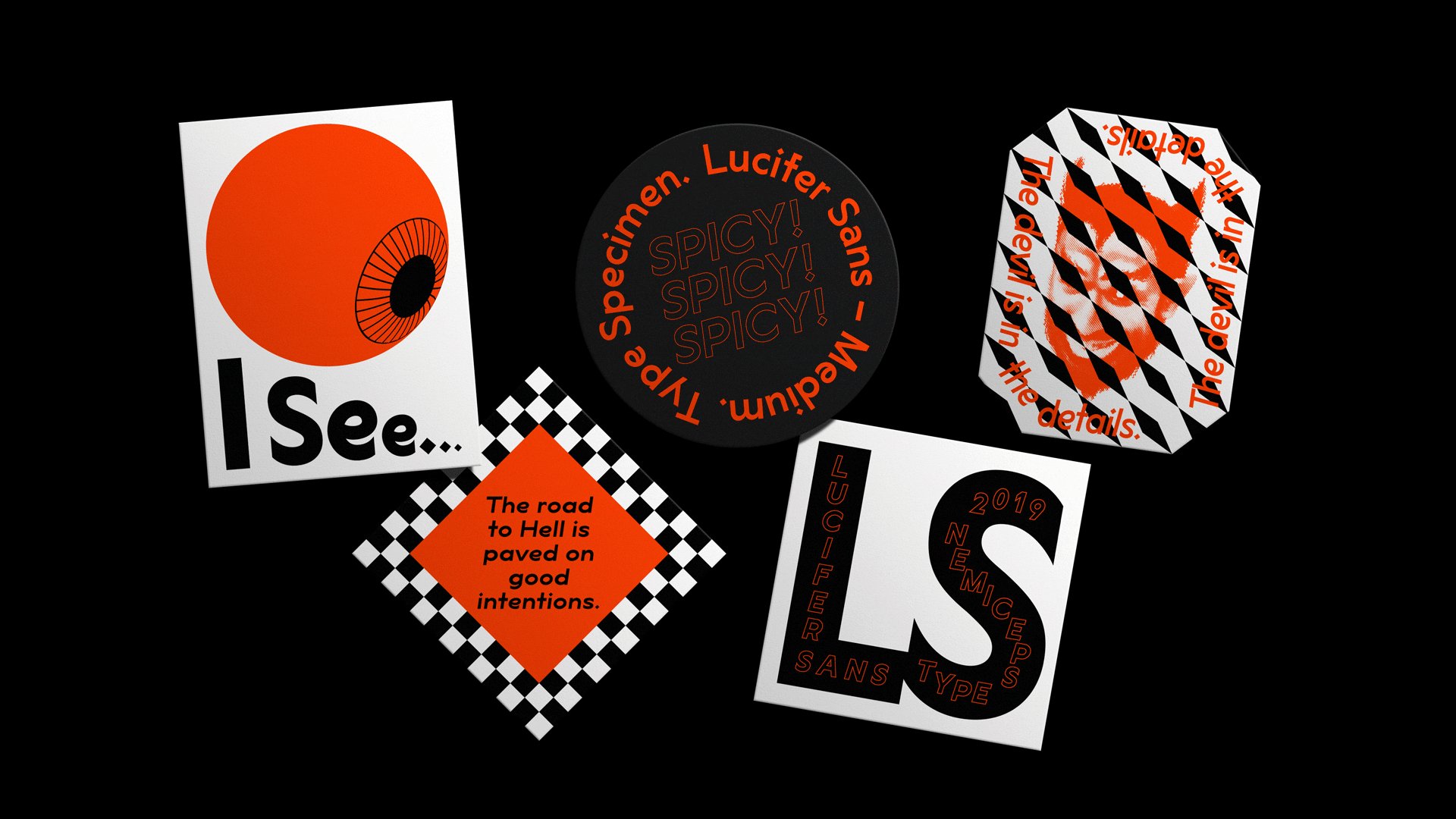
Daniel Brokstad designed Lucifer Sans - a modern sans serif font rooted in Scandinavian geometry and minimalism, mixed with a healthy dose of black metal a...